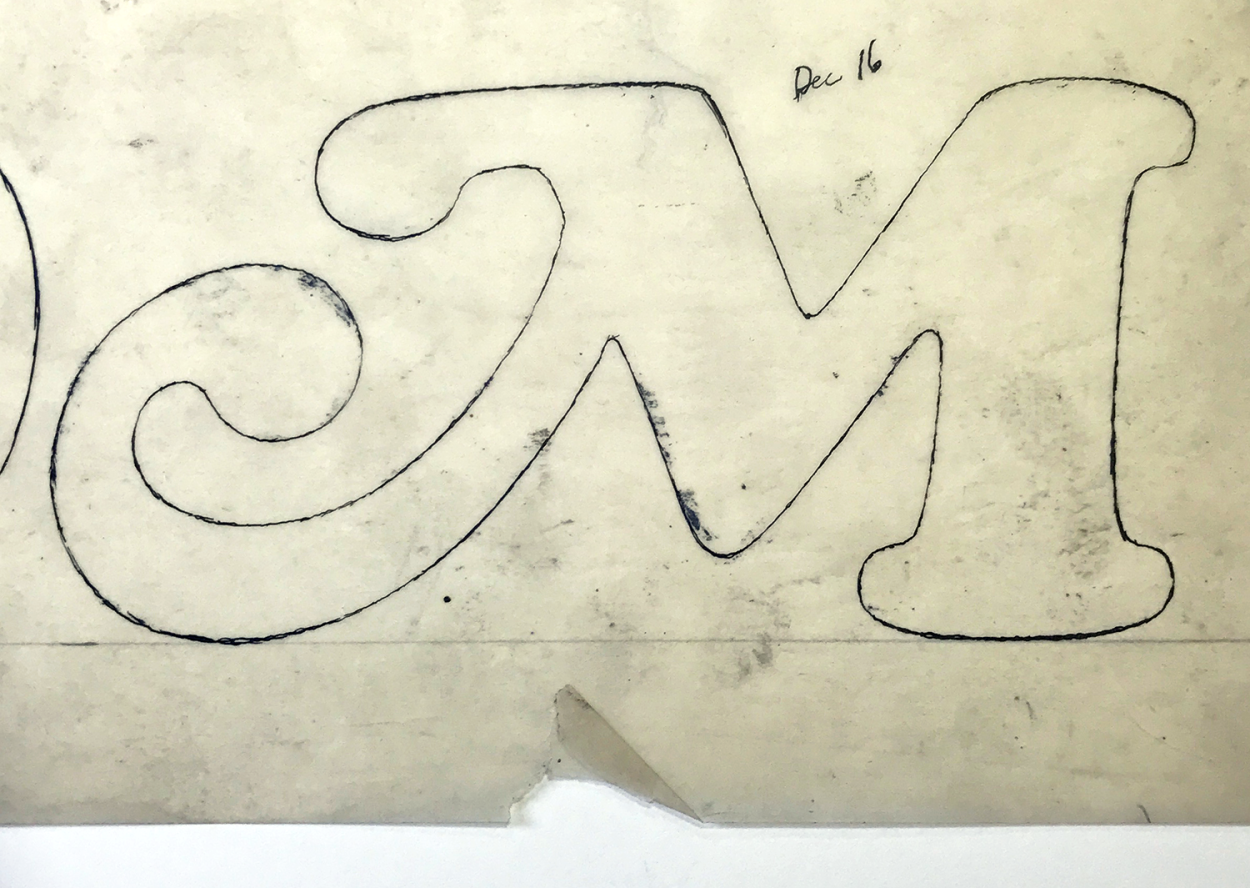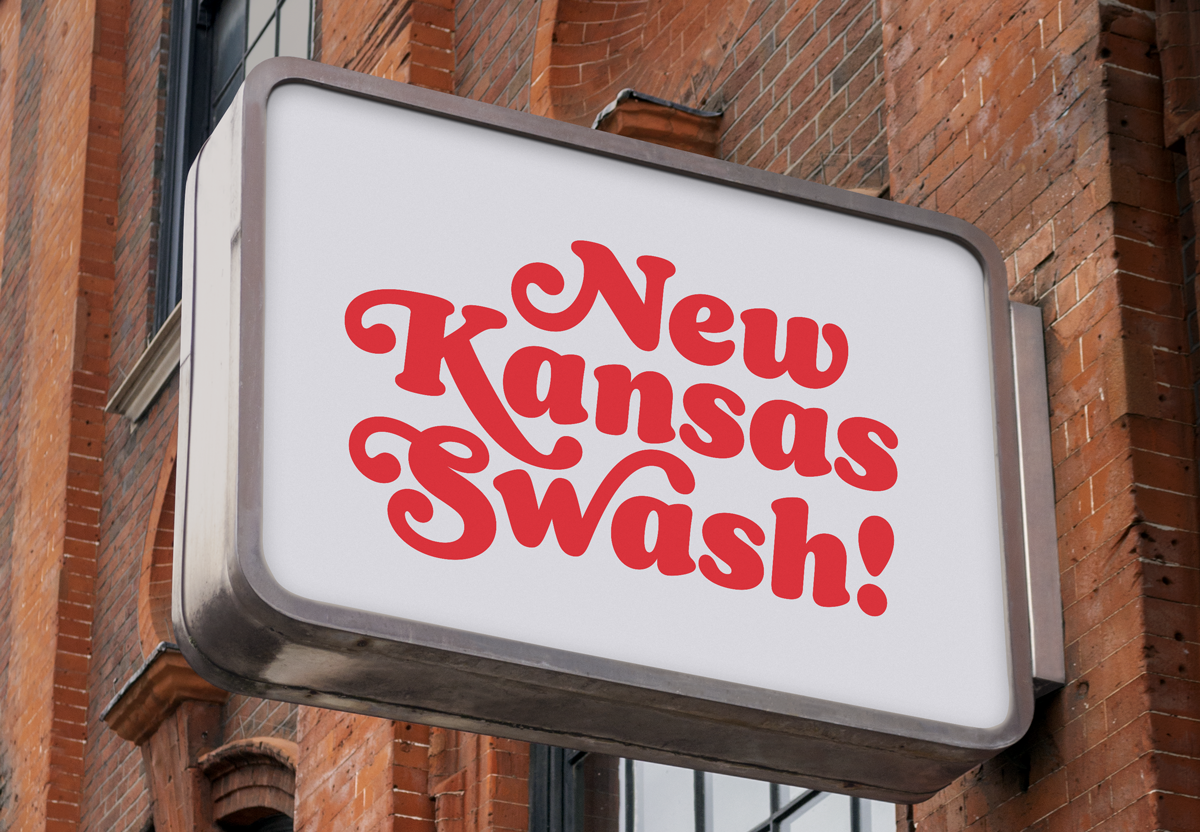
New Kansas Italic & Swashes Font | Cooper Black Revival Typeface
New Kansas is a contemporary reinterpretation of Oswald Cooper’s Cooper Black: warm, bulbous, persuasive and unmistakably useful. Redrawn for modern brand typography, editorial design, packaging and display work, the family extends the familiar Cooper mood into a broader system of Roman, Italic, Swash and ExtraSwash styles.
New Kansas is not just a Cooper Black-style display face. The collection includes a practical Roman family, a lively Italic, and two increasingly expressive swash families. Swash adds movement and flourish; ExtraSwash pushes the design further for headlines, packaging, logotypes and short pieces of display typography.
Roman, Italic, Swash and ExtraSwash
New Kansas is not just a Cooper Black-style display face. The collection includes a practical Roman family, a lively Italic, and two increasingly expressive swash families. Swash adds movement and flourish; ExtraSwash pushes the design further for headlines, packaging, logotypes and short pieces of display typography.